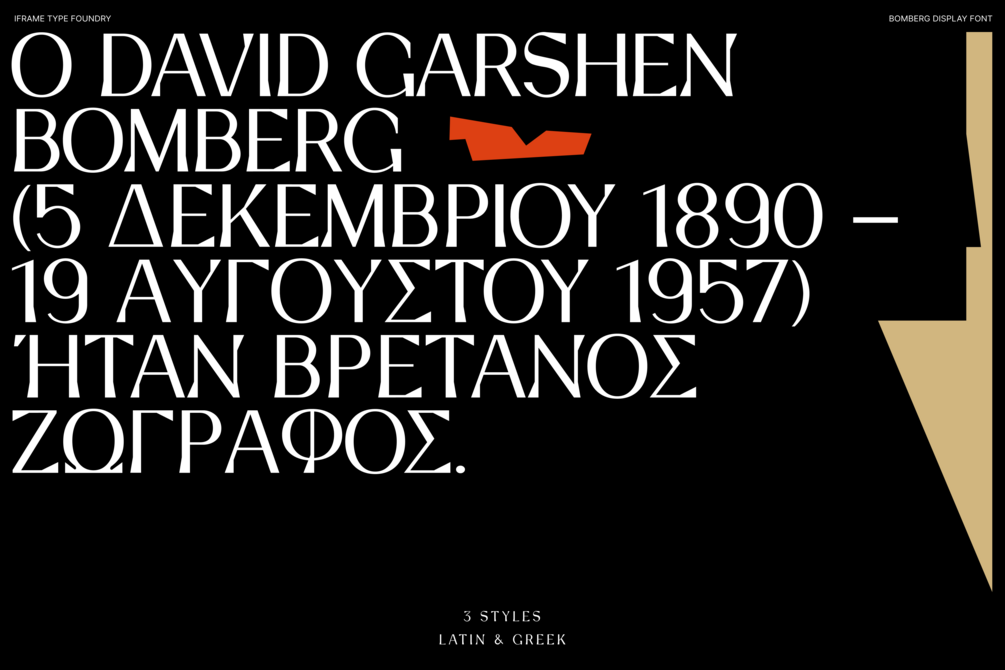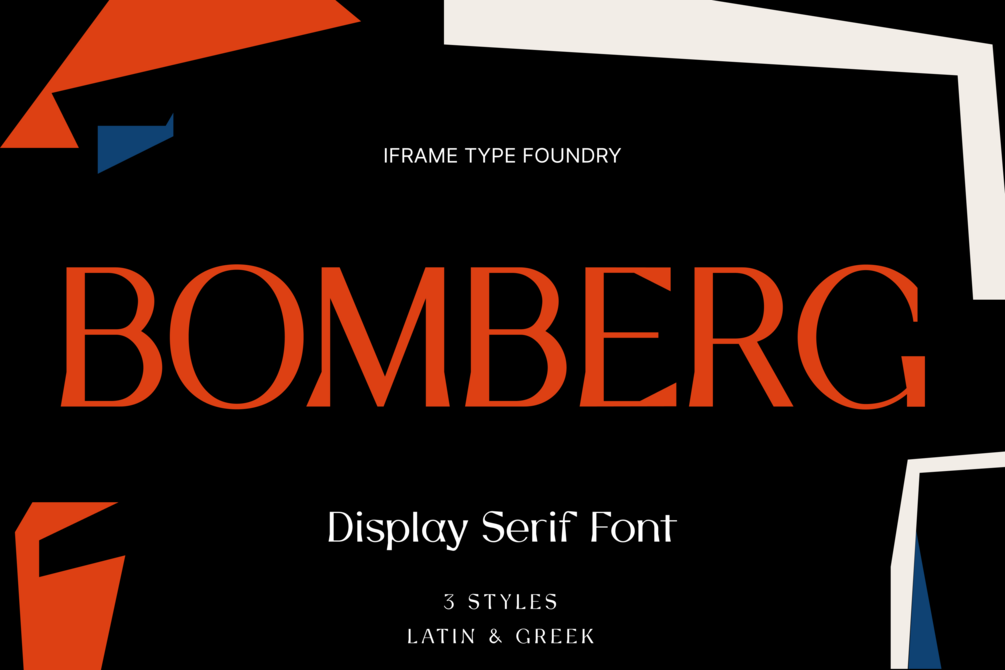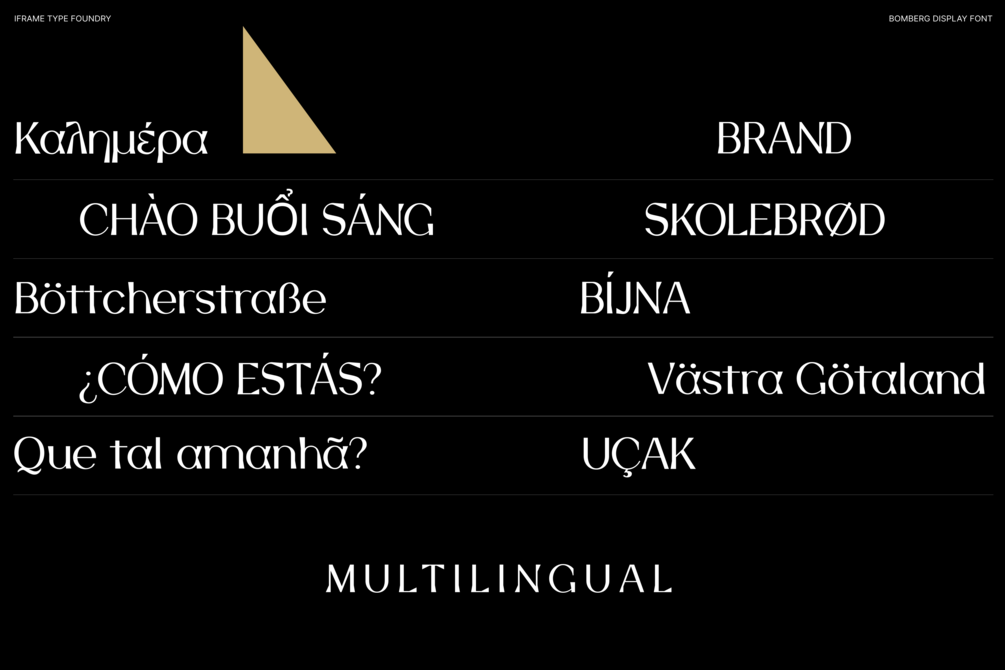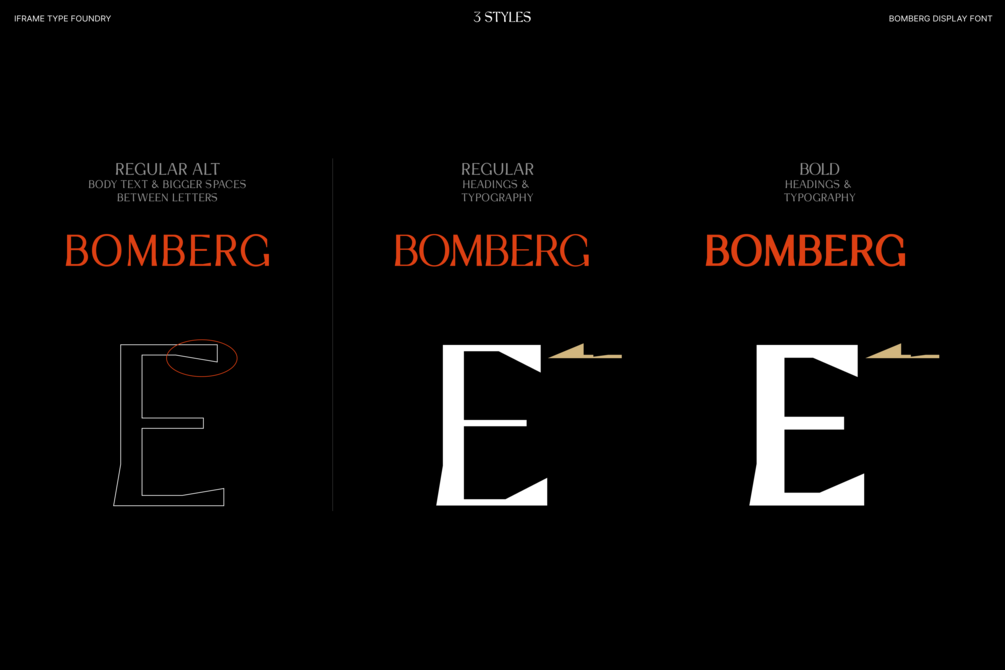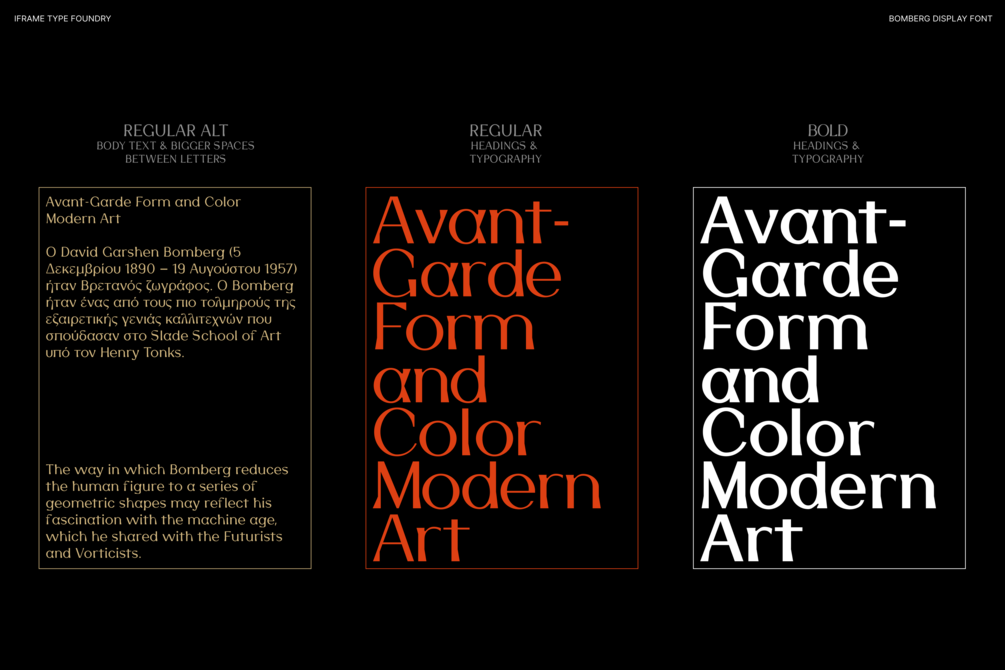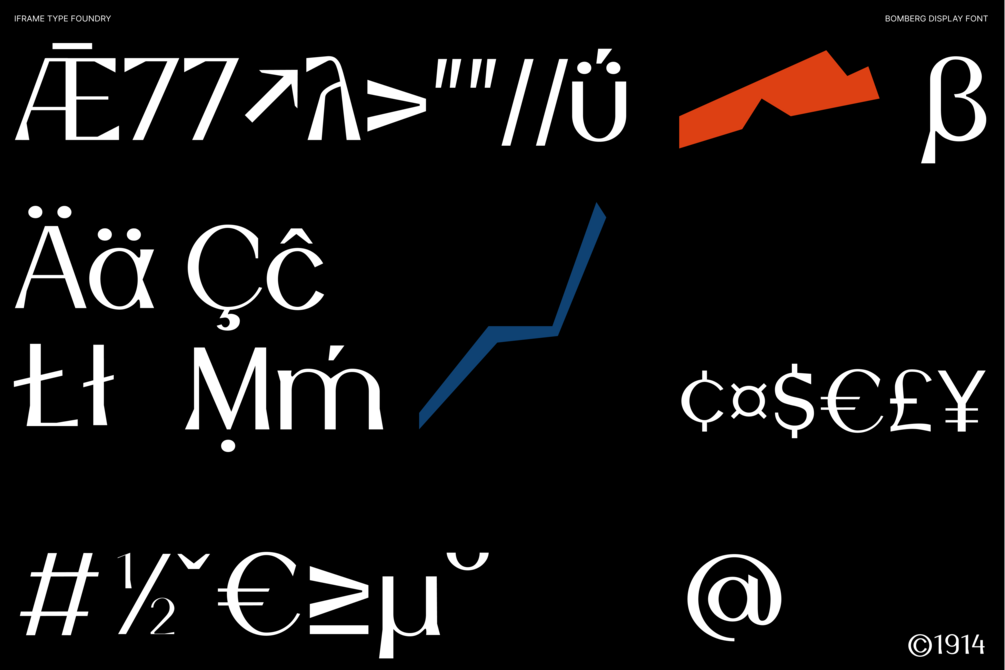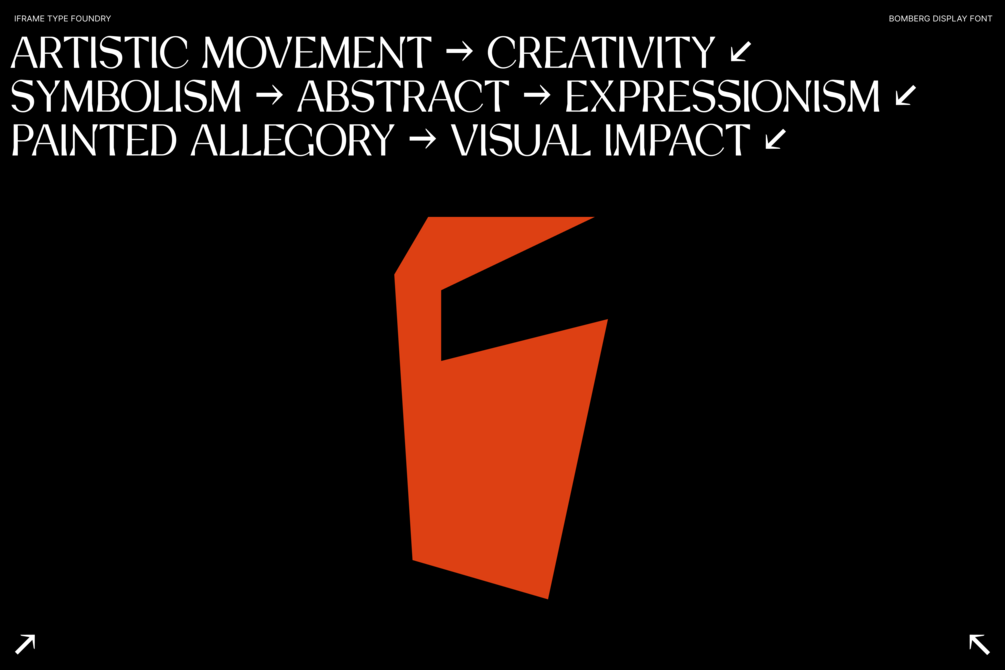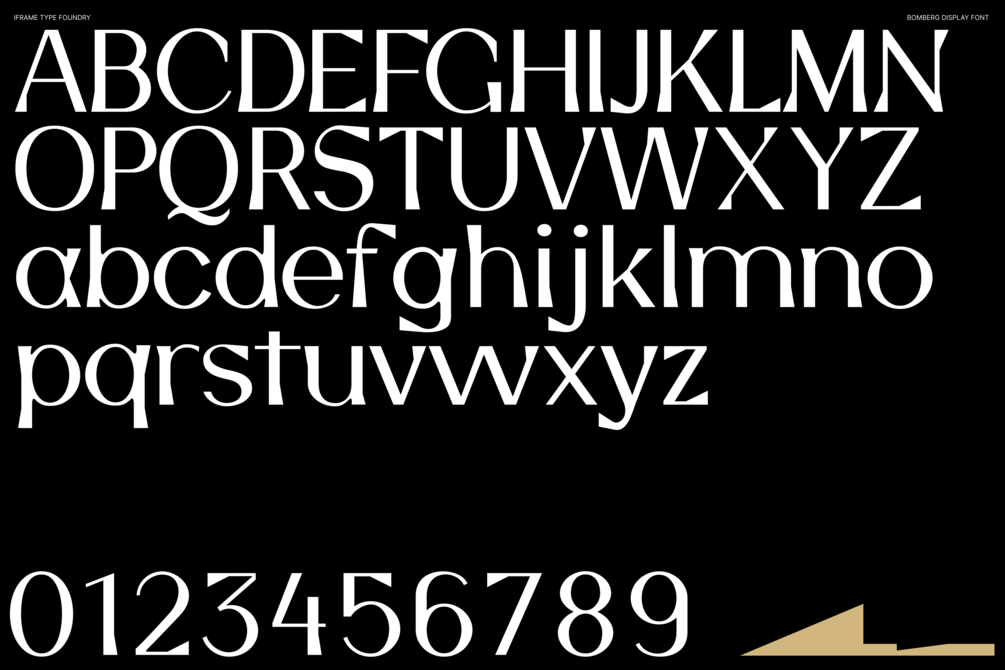
Bomberg Serif Font
Immerse yourself in the world of art and typography with Bomberg Serif Font by iframe type foundry. Inspired by the legendary David Bomberg's iconic painting, "The Mud Bath." Just as Bomberg's brush strokes conveyed raw emotion and creativity, our font captures that very essence in each meticulously crafted letterform.
With Bomberg Serif Font, your designs transcend the ordinary, taking on a unique and expressive character. Like the vivid colors of "The Mud Bath," our font injects vibrancy and depth into your projects. Whether you're a designer seeking to infuse artistic flair or an artist searching for the perfect typographic medium, this font lets you channel the spirit of Bomberg's masterpiece into your work.
Unleash your creativity, tell your story, and make your designs a work of art with Bomberg Serif Font. Explore the intersection of artistry and typography today!
Font Overview
◊ Weights: 3 + ligatures